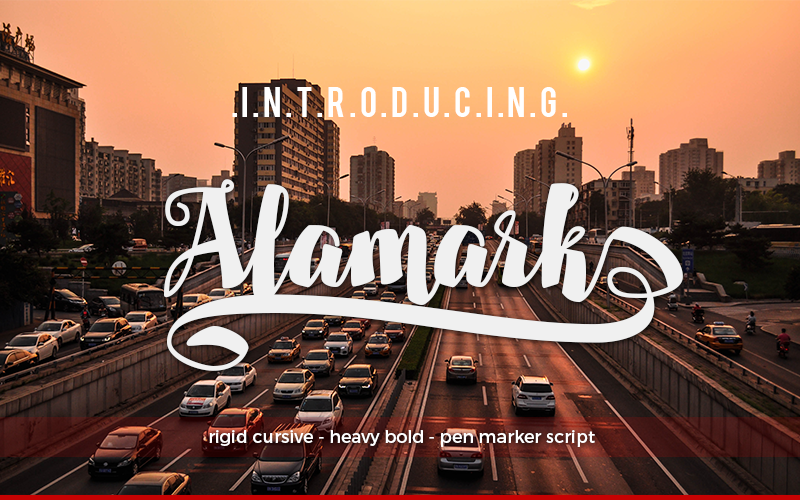
Introducing Alamark Font: The Beautiful and Bold Cursive Script
Are you looking for a font that demands attention and makes a statement? Look no further than Alamark Font, a stunning and bold cursive script that is sure to elevate your designs. Crafted with precision and care, Alamark is a beautiful font that is perfect for headline or display designs.
What is Alamark Font?
Alamark Font is a gorgeous cursive script that is intricately crafted by marker. Its bold look and feel make it perfect for designs that require a touch of elegance and sophistication. Whether you’re a designer, crafters, or simply someone who appreciates beautiful typography, Alamark Font is sure to impress.
Key Features of Alamark Font
- Beautiful Cursive Script: Alamark Font features a stunning cursive script that is sure to add a touch of elegance to your designs.
- Bold Look: The font’s bold look and feel make it perfect for headline or display designs that require attention-grabbing typography.
- Intricately Crafted: Alamark Font is crafted with precision and care, giving it a unique and distinctive feel.
- Marker Crafted: The font is crafted by marker, giving it a hand-crafted feel that is sure to add a touch of personality to your designs.
Uses of Alamark Font
Alamark Font is a versatile font that can be used in a variety of design projects, including:
- Headline Designs: The font’s bold look and feel make it perfect for headline designs that require attention-grabbing typography.
- Display Designs: Alamark Font is also great for display designs, such as posters, flyers, and brochures.
- Branding and Identity: The font’s unique and distinctive feel make it perfect for branding and identity projects that require a touch of elegance and sophistication.
- Digital and Print Media: Alamark Font can be used in both digital and print media, including websites, social media, and print materials.
Why Choose Alamark Font?
There are many reasons why you should choose Alamark Font for your design projects. Here are a few:
- Unique and Distinctive: Alamark Font is a unique and distinctive font that is sure to add a touch of personality to your designs.
- Elegant and Sophisticated: The font’s elegant and sophisticated feel make it perfect for designs that require a touch of luxury and refinement.
- Attention-Grabbing: Alamark Font’s bold look and feel make it perfect for designs that require attention-grabbing typography.
- Easy to Read: Despite its bold look, Alamark Font is easy to read and can be used in a variety of design projects.
Tips for Using Alamark Font
Here are a few tips for using Alamark Font in your design projects:
- Use it Sparingly: Alamark Font is a bold font, so it’s best to use it sparingly to avoid overwhelming your designs.
- Pair it with Other Fonts: Alamark Font can be paired with other fonts to create a unique and interesting contrast.
- Experiment with Colors: The font’s bold look and feel make it perfect for experimenting with different colors and textures.
Alamark Font is a beautiful and bold cursive script that is sure to elevate your designs. With its intricate craftsmanship, elegant feel, and attention-grabbing typography, Alamark Font is perfect for headline or display designs that require a touch of elegance and sophistication. Whether you’re a designer, crafters, or simply someone who appreciates beautiful typography, Alamark Font is sure to impress.